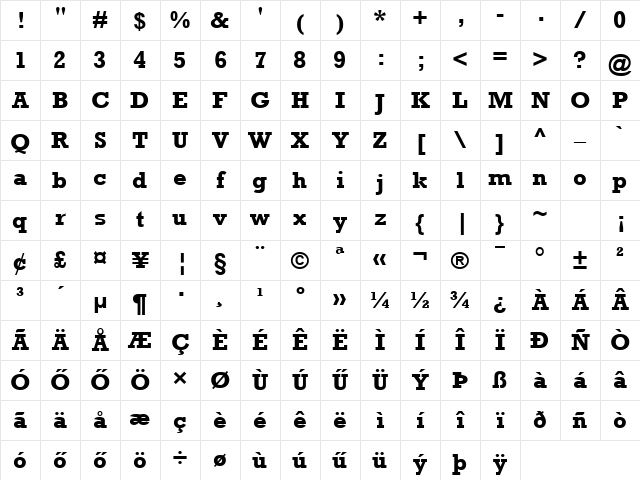
Hu_Rockwell Bold is a composed and adaptable typeface that performs quietly and consistently across a wide range of design contexts. Its bold stroke weight gives it real presence on the page.